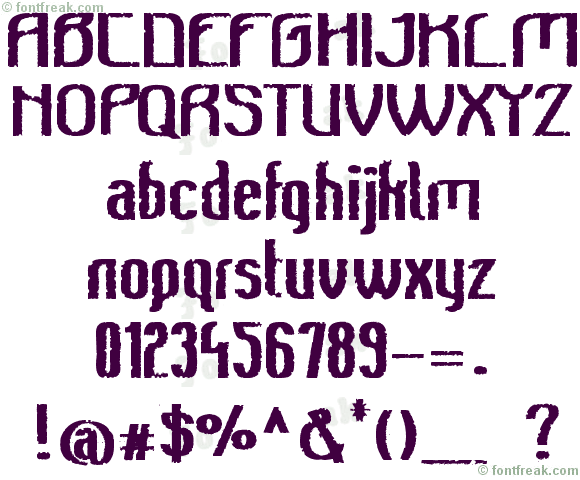
Bee Ridge Vintage Semi-condensed Bold
About Bee Ridge Vintage Semi-condensed Bold
Bee Ridge Vintage Semi-condensed Bold, designed by Roland Huse, is a captivating display font that encapsulates a nostalgic charm with its unique vintage flair. This font falls into the decorative category, featuring a semi-condensed structure that allows for a striking presence across various design applications. The bold stroke weight enhances its visibility, making it an excellent choice for attention-grabbing headlines and titles. The font exudes a rustic feel, with subtle decorative elements that evoke a sense of warmth and character, while the consistent spacing adds to its legibility.
This font is particularly well-suited for use cases such as retro-themed wedding invitations, where its vintage aesthetic can enhance the romantic atmosphere. Additionally, it works beautifully for movie posters, especially those aiming for a classic or nostalgic vibe, drawing viewers in with its artistic flair. Restaurant menus can also benefit from the font's distinctive style, helping to create a memorable dining experience that resonates with patrons. Graphic designers and content creators will find the Bee Ridge Vintage Semi-condensed Bold font free download an invaluable resource for adding a touch of personality and charm to their projects.
The target audience for this font includes graphic designers, small business owners looking to establish a unique brand identity, and content creators who wish to infuse their work with a vintage touch. Bee Ridge Vintage Semi-condensed Bold stands out not only for its aesthetic appeal but also for its versatility across a variety of design contexts. Its ability to evoke nostalgia while remaining functional and legible makes it a delightful choice for anyone seeking to enhance their visual communication.